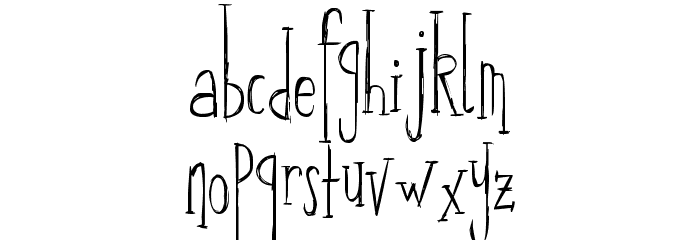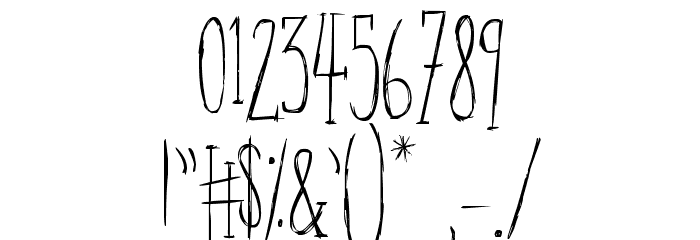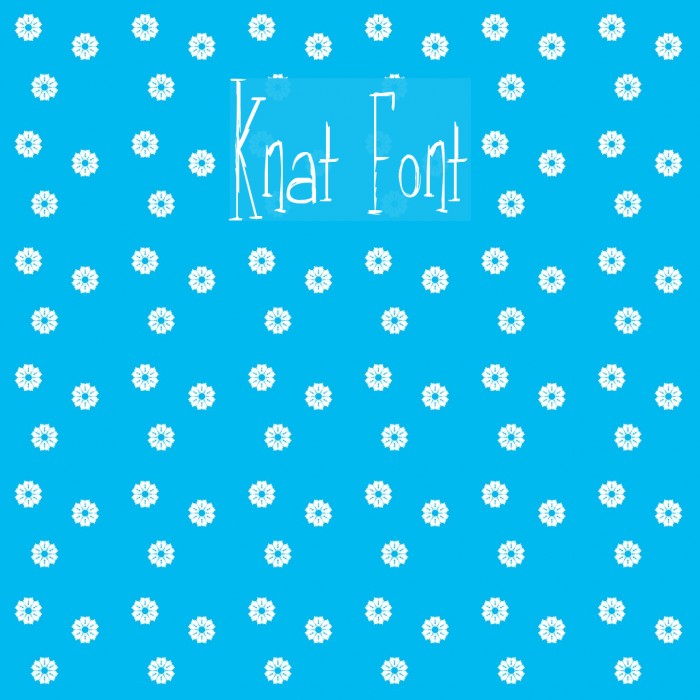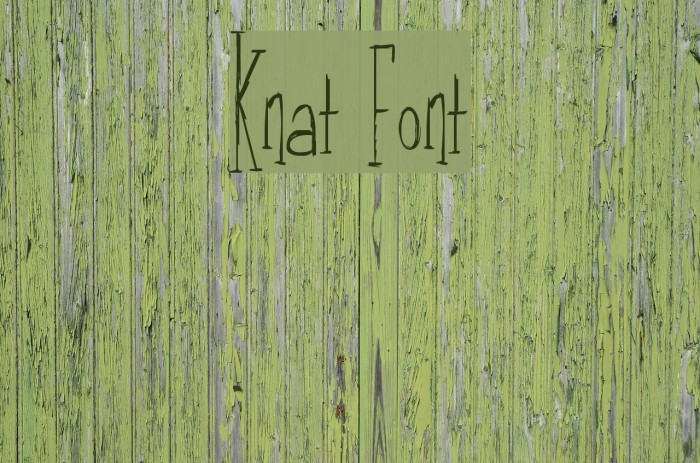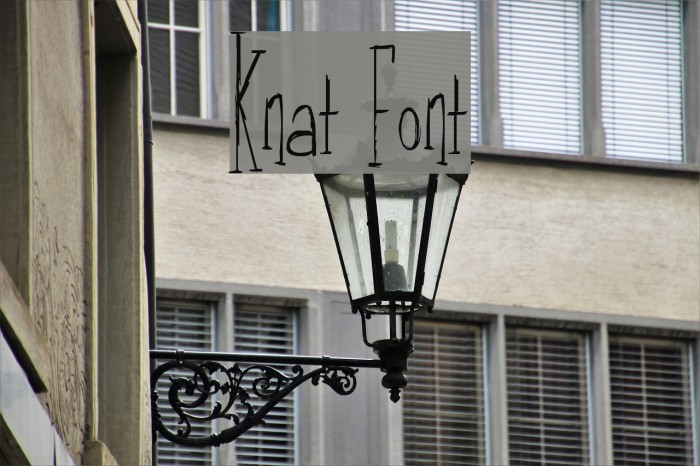
Knat Font
This font features a whimsical and playful design with tall, narrow characters that have a hand-drawn, sketch-like quality. The strokes are uneven, adding to its quirky and artistic appeal. The uppercase letters are particularly elongated, while the lowercase letters maintain a consistent height, creating a unique contrast. The numerals and special characters follow the same playful style, making the font suitable for creative and informal projects. Its distinctive appearance makes it stand out, offering a sense of individuality and charm.
A whimsical, hand-drawn font with tall, narrow characters and a playful style.
- Proposed Projects: Ideal for children's books, greeting cards, creative posters, and artistic branding.